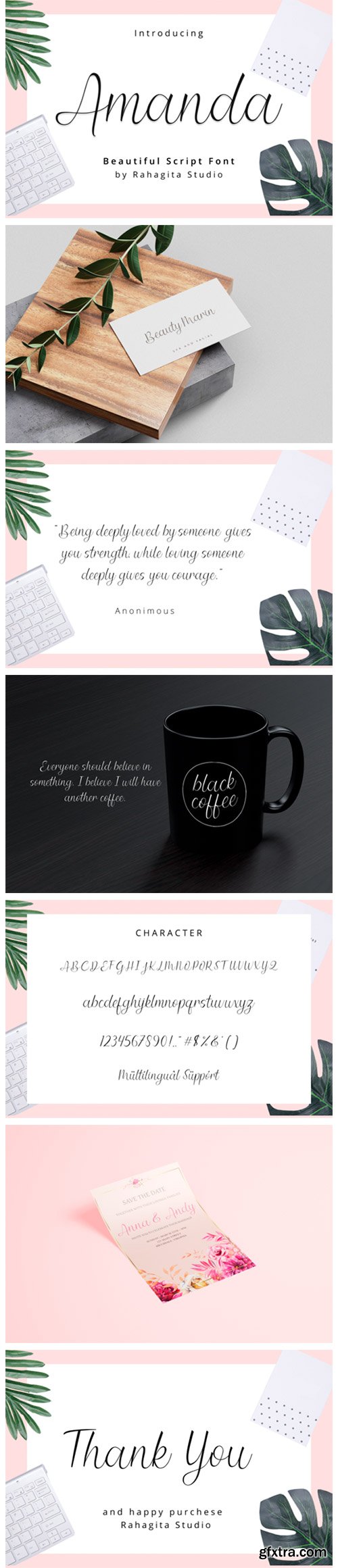
Amanda Font
Amanda simplifies elegance into one truly outstanding handwritten font. This font is the perfect fit for all of your logos, branding, social media, and crafty DIY projects.